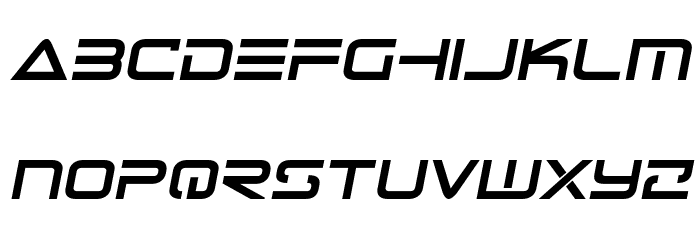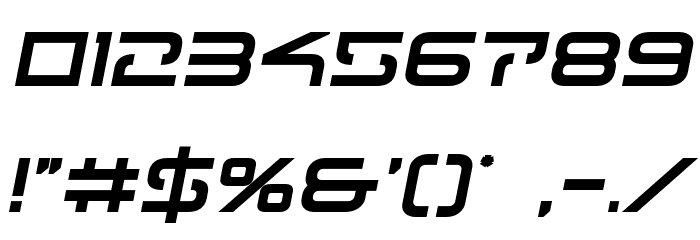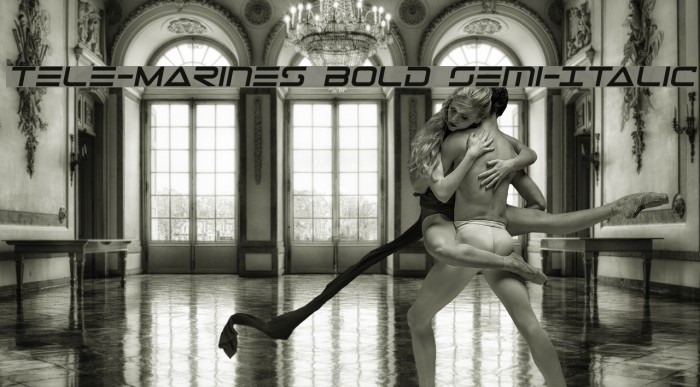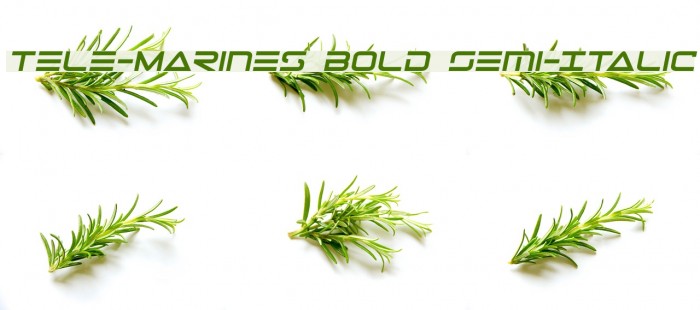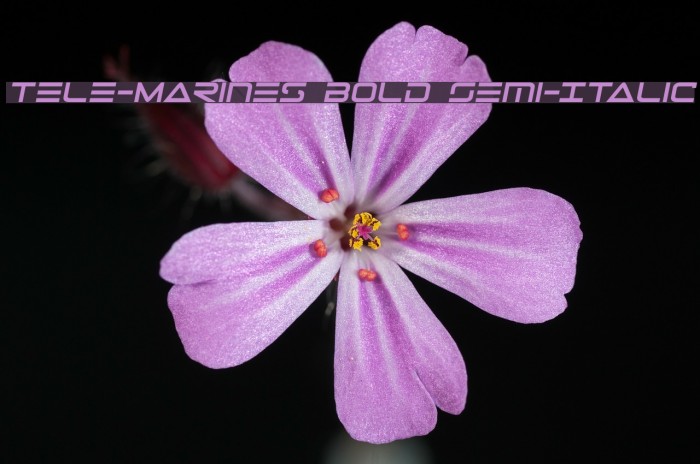
Tele-Marines Bold Semi-Italic Font
This font exhibits a futuristic and dynamic style, characterized by its angular and geometric letterforms. The characters are slightly italicized, giving a sense of motion and speed. The bold weight enhances its presence, making it suitable for impactful designs. The uppercase and lowercase letters maintain a consistent design, with unique features such as slanted edges and sharp corners. The numerals and special characters follow the same aesthetic, ensuring uniformity across all glyphs. This font's design is ideal for projects that require a modern and edgy look.
A bold, semi-italic font with a futuristic and dynamic style.
- Proposed Projects: Ideal for technology branding, sci-fi movie posters, video game titles, and modern advertising campaigns.